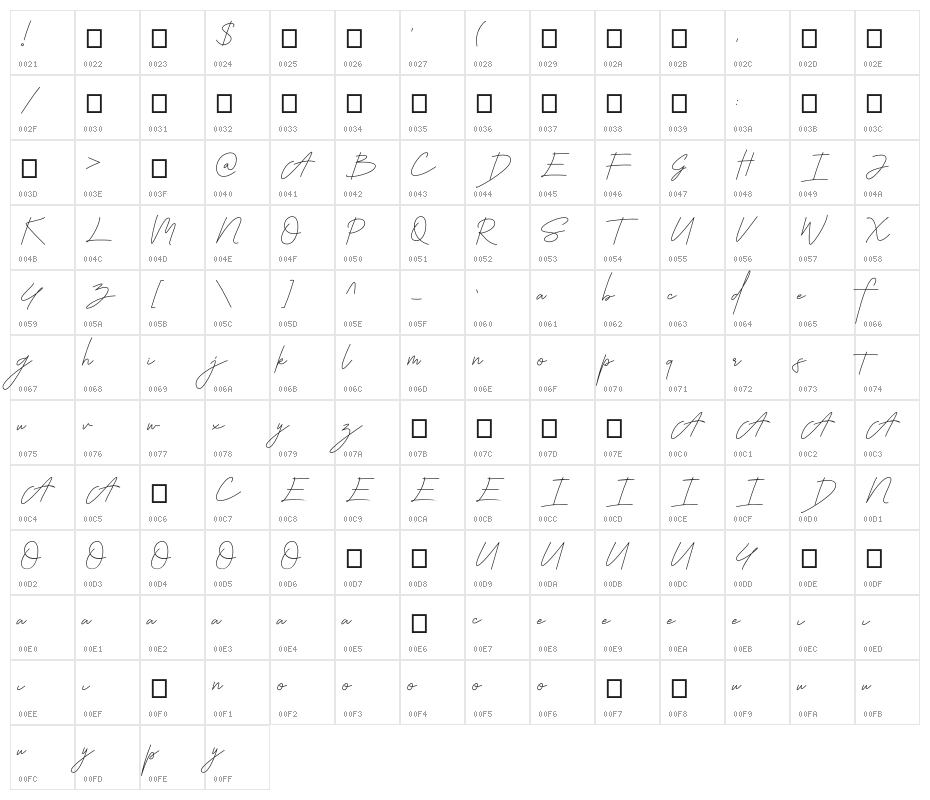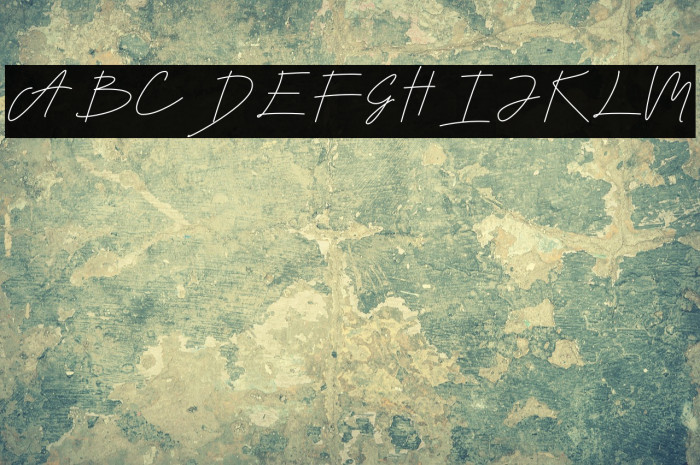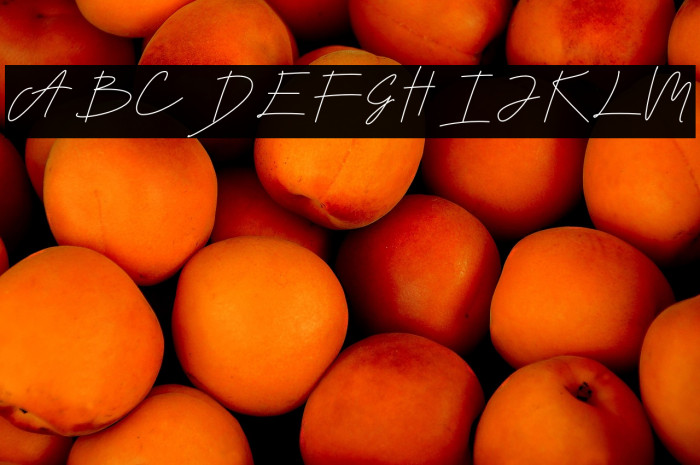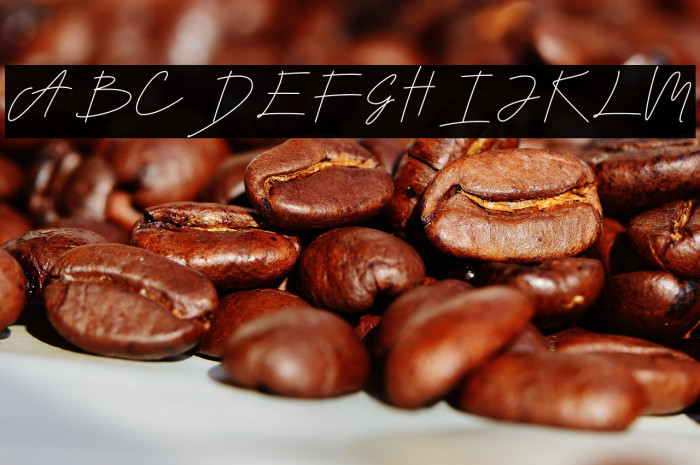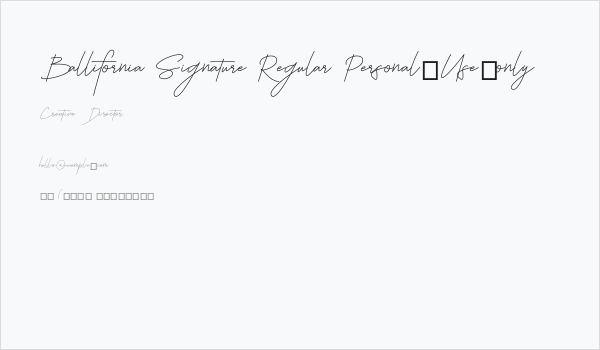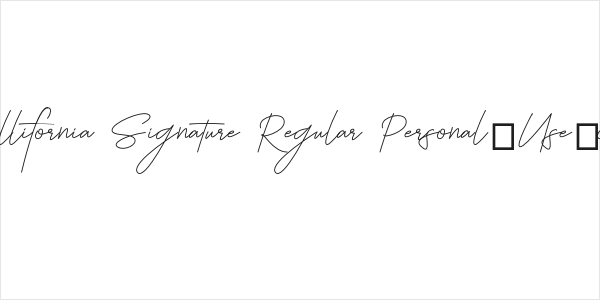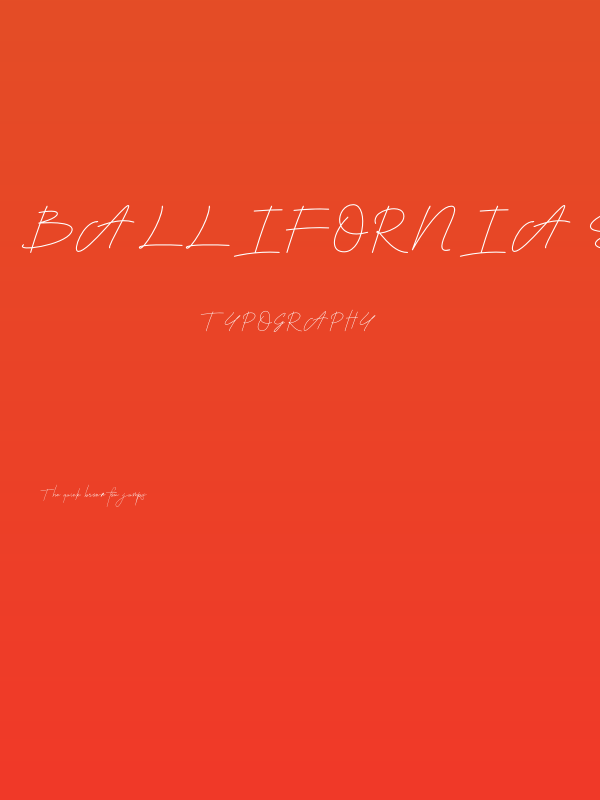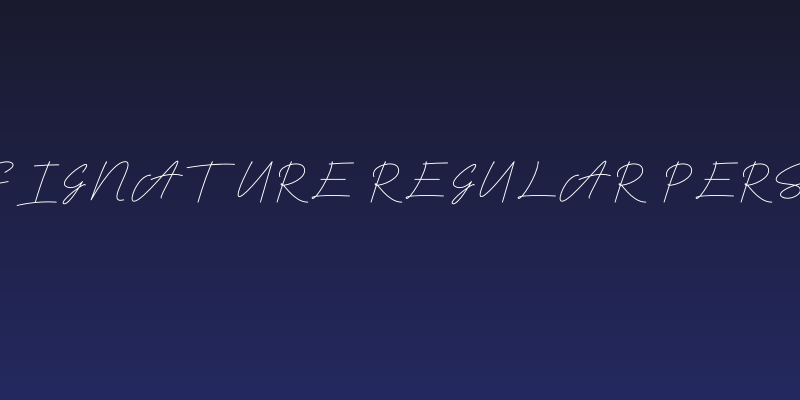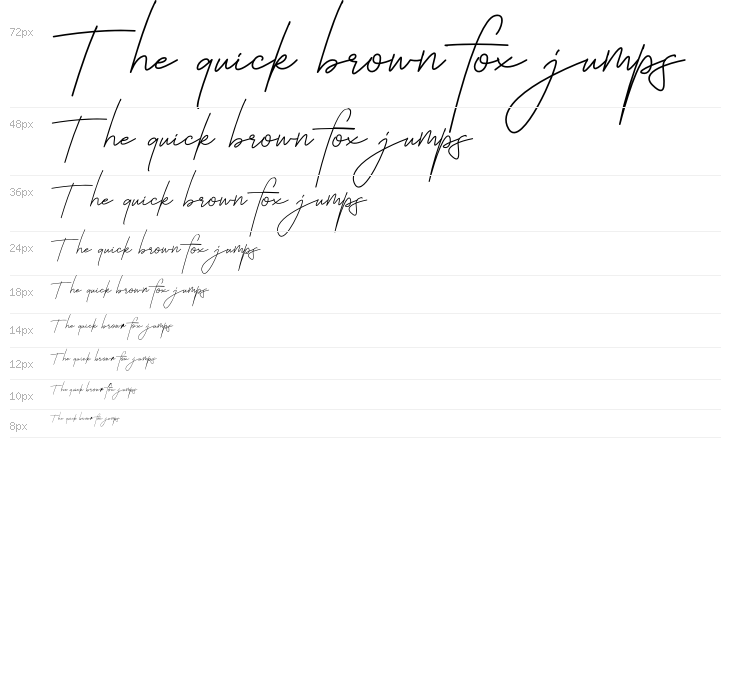
Ballifornia Signature Regular Personal-Use-only Font
Ballifornia Signature Regular Personal-Use-only Description
A flowing, elegant script font with a handwritten style, featuring thin strokes and a natural, cursive appearance.
| Overall Style | Elegant, Handwritten |
| Use Case | Logos, Invitations, Personal branding |
| Proposed Projects | Invitations, personal branding, elegant logos. |